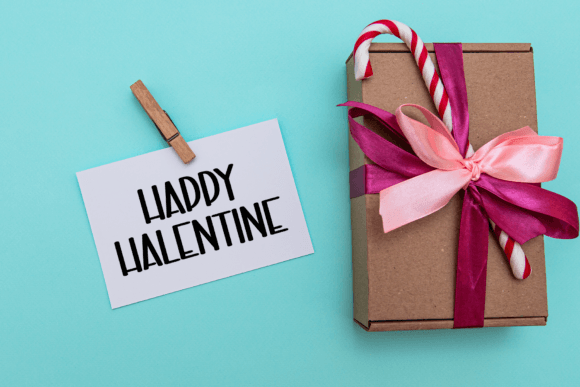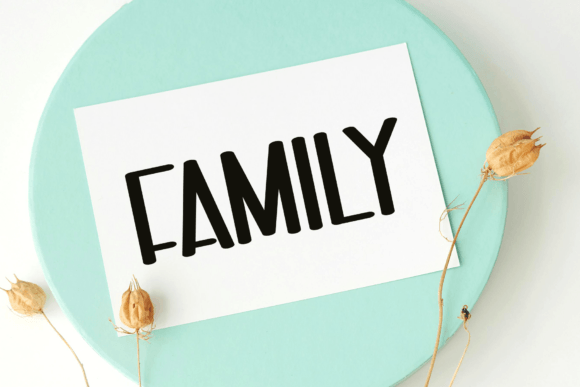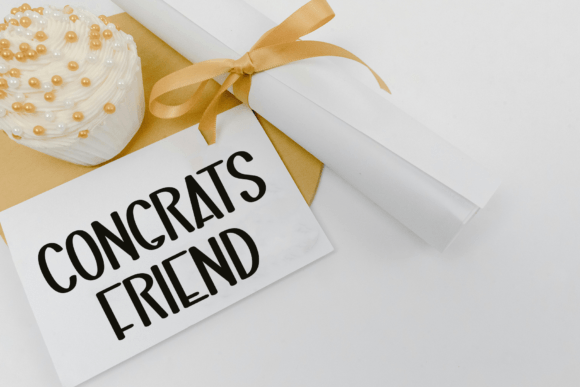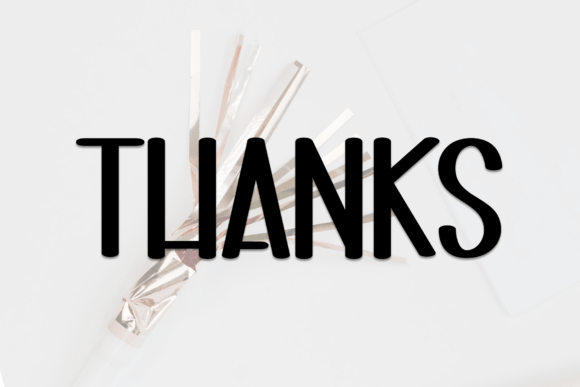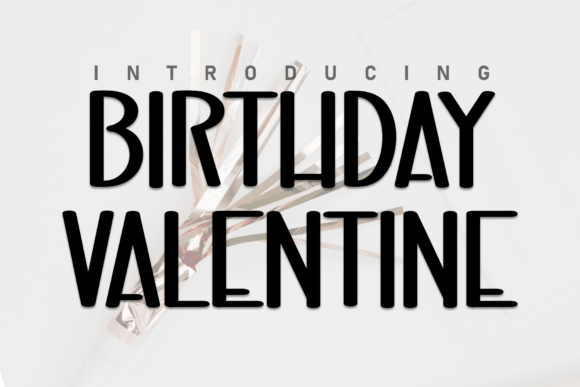
Introducing Birthday Valentine Font: The Perfect Handwritten Style for Your Designs
Are you looking for a font that can add a personal touch to your designs? Do you want to create a luxurious and elegant look that’s still casual and relaxed? Look no further than the Birthday Valentine Font, a beautiful handwritten font that looks like it was drawn with a marker.
What is Birthday Valentine Font?
Birthday Valentine Font is a unique and stylish handwritten font that’s perfect for a variety of design projects. Its relaxed and sporty feel makes it ideal for use in branding, logos, wedding supplies, greeting cards, fashion, lookbooks, marketing promotions, and more.
With its marker-like appearance, Birthday Valentine Font adds a personal and human touch to any design. It’s perfect for designers and crafters who want to create unique and eye-catching projects that stand out from the crowd.
Key Features of Birthday Valentine Font
• Handwritten style: Birthday Valentine Font has a beautiful, handwritten style that’s perfect for creating personal and unique designs.
• Marker-like appearance: The font’s marker-like appearance gives it a relaxed and sporty feel that’s perfect for a variety of design projects.
• Luxurious and elegant: Despite its casual feel, Birthday Valentine Font has a luxurious and elegant quality that makes it perfect for high-end designs.
• Versatile: This font is perfect for a wide range of design projects, from branding and logos to wedding supplies and greeting cards.
Uses for Birthday Valentine Font
Birthday Valentine Font is a versatile font that can be used in a variety of design projects. Here are some ideas to get you started:
• Branding and logos: Use Birthday Valentine Font to create a unique and memorable brand identity.
• Wedding supplies: This font is perfect for creating beautiful wedding invitations, stationery, and other wedding supplies.
• Greeting cards: Use Birthday Valentine Font to create personalized and eye-catching greeting cards for any occasion.
• Fashion and lookbooks: This font is perfect for creating stylish and sophisticated fashion designs and lookbooks.
• Marketing promotions: Use Birthday Valentine Font to create eye-catching marketing materials, such as brochures, flyers, and posters.
Tips for Using Birthday Valentine Font
Here are some tips for getting the most out of Birthday Valentine Font:
• Use it with a personal touch: Birthday Valentine Font is perfect for creating personal and unique designs. Use it to add a human touch to your projects.
• Experiment with colors: This font looks great in a variety of colors. Experiment with different colors to find the perfect look for your design.
• Pair it with other fonts: Birthday Valentine Font pairs well with other fonts. Try pairing it with a bold font for a striking contrast.
Font Name Birthday Valentine Font
Author KC Production
Birthday Valentine Font is a beautiful and versatile handwritten font that’s perfect for a variety of design projects. Its relaxed and sporty feel makes it ideal for use in branding, logos, wedding supplies, greeting cards, fashion, lookbooks, marketing promotions, and more. With its marker-like appearance and luxurious and elegant quality, this font is sure to add a personal touch to any design.